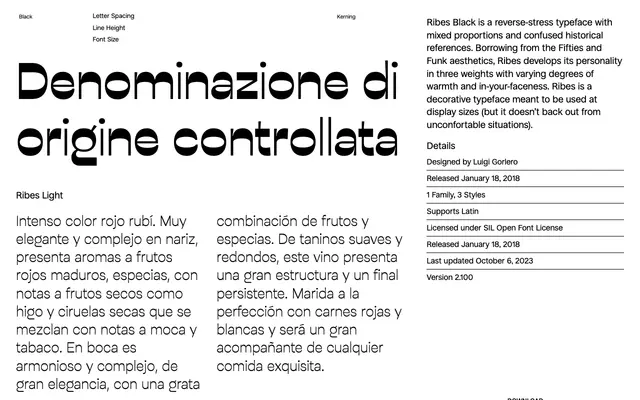
Ribes
Collletttivo · Luigi Gorlero · 2018
A reverse-stress display typeface with mixed proportions and an irreverent personality drawing on 1950s and Funk visual culture.
Designed by Luigi Gorlero and released in 2018, Ribes comes in three weights — Light, Regular and Black — each calibrated to deliver a different degree of warmth and directness. The reverse-stress construction, mixed proportions and deliberately confused historical references give it a character suited to headlines and large-scale typesetting. It is free to use under the SIL Open Font License.
Ribes is explicitly described as a reverse-stress typeface with decorative intent and display sizing, placing it firmly in the display category with a reverse-contrast subcategory drawing on 1950s and Funk aesthetics.